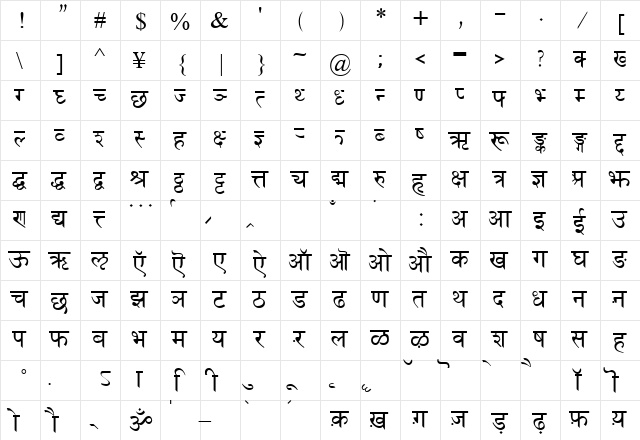
DevanagariDelhiSSK Regular
Design Context for DevanagariDelhiSSK Typeface
DevanagariDelhiSSK takes a measured approach to typography — its balanced proportions and neutral character make it a reliable workhorse for both digital and print work.